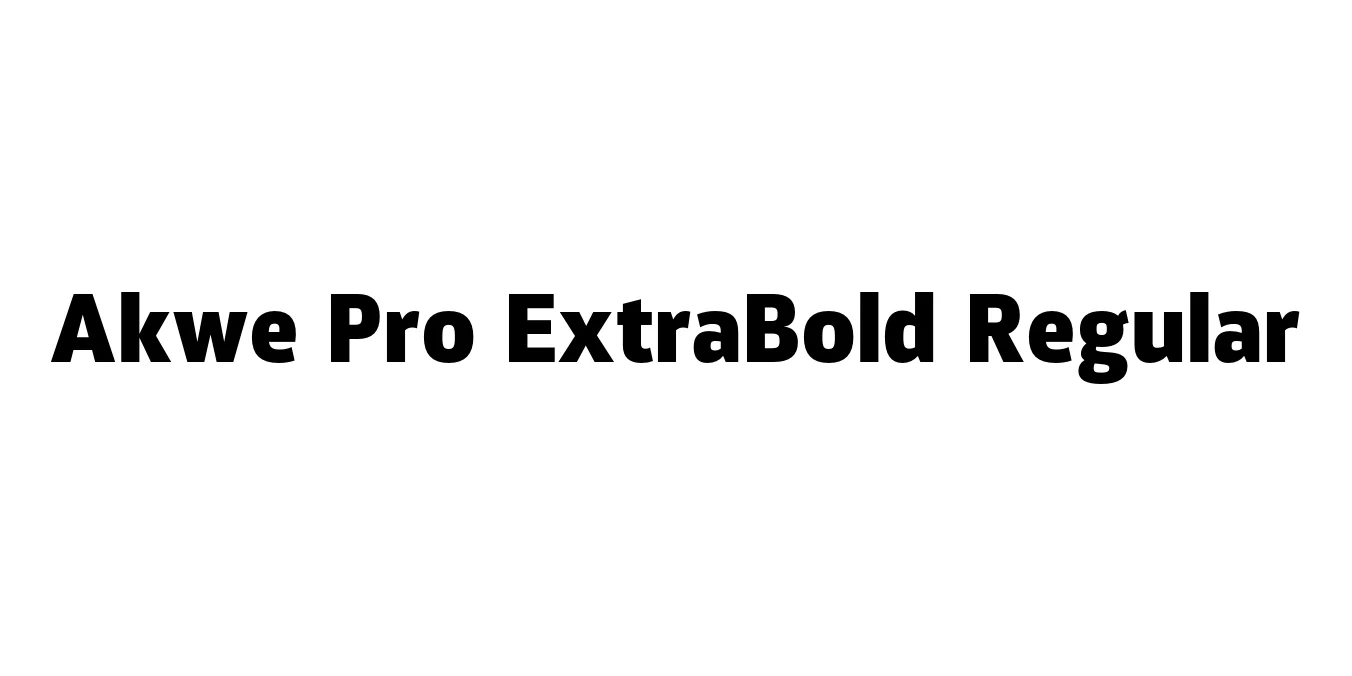
Akwe Pro ExtraBold Regular
Designed by Olexa Volochay
Akwe Pro ExtraBold Regular is a contemporary sans-serif typeface designed by Olexa Volochay, part of the extensive Akwe Pro font family. This specific weight is characterized by its powerful, geometric structure and high-impact presence, making it an ideal choice for modern design projects that require both strength and clarity. The font family is known for its versatility, balancing technical precision with subtle humanistic touches that prevent the letterforms from feeling too industrial.
The ExtraBold weight provides excellent readability even at large scales, featuring meticulously crafted kerning and a wide character set. Its slightly rounded corners and open apertures contribute to a friendly yet professional aesthetic, ensuring it performs well across both digital screens and high-quality print materials. It is a go-to solution for designers who need a typeface that is as functional as it is visually striking.
Akwe Pro ExtraBold Regular Best Uses
Ideal for bold, attention-grabbing titles in magazines or websites.
Perfect for creating strong corporate logos and visual identities.
Excellent for large-format prints requiring high visibility from a distance.
Great for hero sections and primary call-to-action elements in mobile apps.